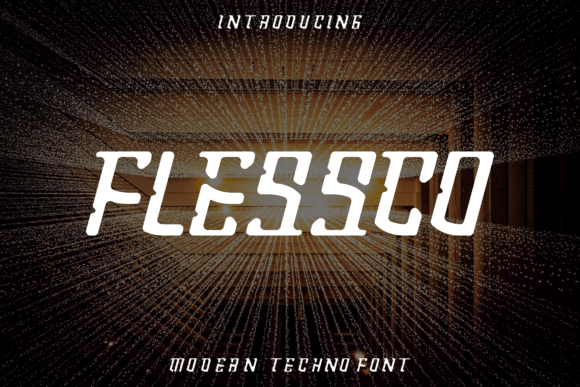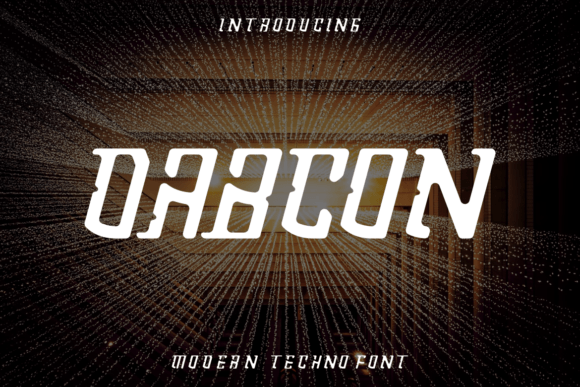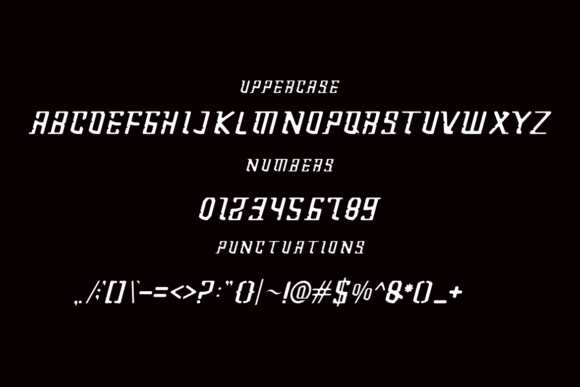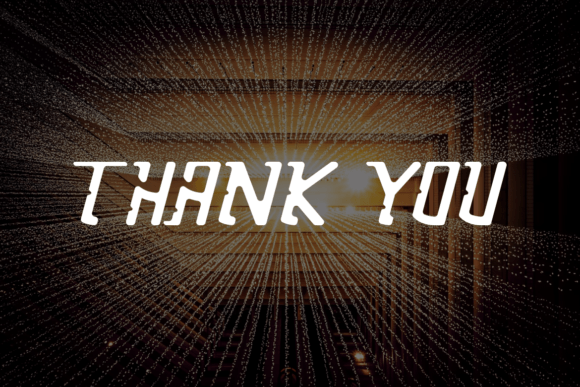
Flessco
Flessco: A Unique and Elegant Slab Serif Font
Flessco is a unique slab serif font that combines beautiful, classy, elegant, and modern design elements. This versatile typeface is perfect for various projects, from signatures and stationery to branding and packaging design. Moreover, it uniquely displays both masculine and feminine qualities, making it especially suitable for fashion-related branding and editorial design.
Key Features of Flessco
• Unique Design: Offers distinctive and refined letterforms.
• Elegant Style: Brings sophistication to designs.
• Modern Appeal: Features contemporary design elements.
• Versatile Character: Balances masculine and feminine qualities.
Best Uses for Flessco
Thanks to its versatile characteristics, Flessco works especially well for:
When using Flessco in your designs, keep these tips in mind:
• Try it for headlines or display text to showcase its unique elegance.
• Use different sizes to highlight its modern features.
• Pair with simpler fonts for body text to create balance[2].
• Let its dual nature enhance both masculine and feminine designs.
To sum up, Flessco is an excellent choice for designers seeking a unique and elegant slab serif font. Its versatility makes it perfect for a wide range of projects. Whether you’re creating fashion branding, designing editorial content, or developing modern marketing materials, Flessco offers the perfect blend of contemporary style and timeless sophistication.
Furthermore, Flessco’s distinctive design allows it to shine in contexts where both modernity and elegance are key. For instance, from fashion-related materials to editorial designs, this font can elevate your projects with its refined style. Also, its unique ability to balance masculine and feminine qualities makes it particularly versatile for diverse design needs.
In conclusion, Flessco truly captures the essence of modern elegance in slab serif typography. Its versatility across different applications shows how well it can serve various creative needs. Therefore, for those wanting to add a touch of unique sophistication to their work, Flessco can enhance any design with its distinctive style. Ultimately, it’s perfect for designers aiming to make an elegant, modern impact across a wide range of creative projects.